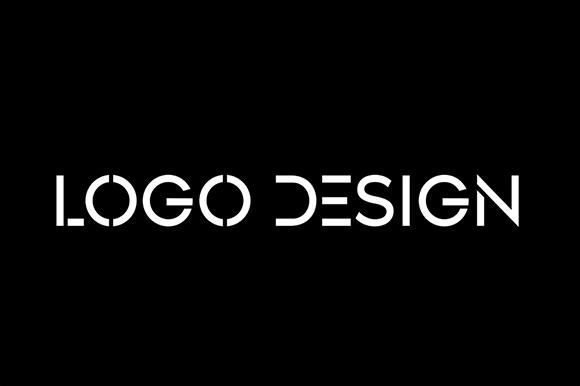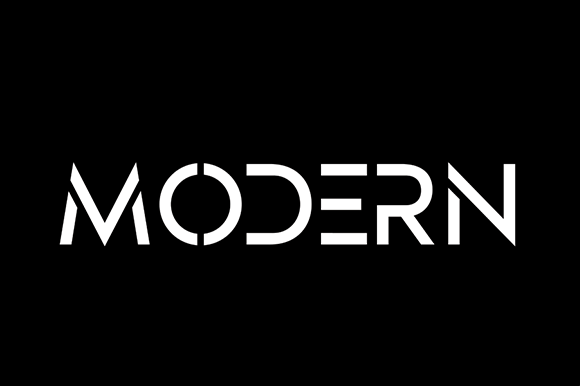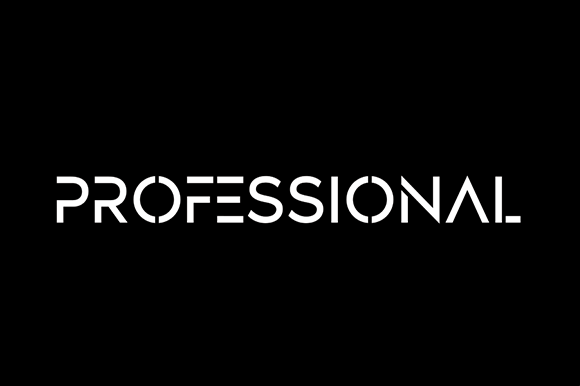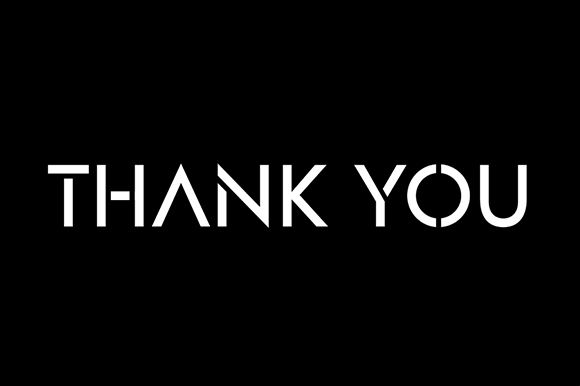
Meet Your New Design BFF: Designer Font
You know that moment when a font just clicks? When you’re working on a project and suddenly, the perfect font appears, and everything falls into place? That’s exactly what happens when you discover the Designer Font. This simple yet stylish typeface is designed to elevate your designs, adding a touch of sophistication and elegance to any layout.
Whether you’re working on a formal brochure or a casual social media post, the Designer Font is the perfect companion for designers. Its clean and beautiful arrangement of letters makes it versatile and easy to use, ensuring your designs stand out from the crowd. With its ability to adapt to any style, this font is a valuable addition to any designer’s toolkit.
Designer Font Key Features
• Unique characteristic: Custom-designed letterforms with subtle flair and elegance, making it ideal for high-end branding and publishing projects.
• Support for advanced typographic features, such as ligatures, swashes, and ornaments, allowing designers to add a touch of sophistication to their work.
Designer Font Review
Overall, I think Designer Font has some great qualities, but it also has some limitations that might make it not suitable for every project. Let’s dive in and see what I mean.
• The font is very stylish and modern, perfect for trendy websites and applications.
• The font weights are well-designed and look great at different sizes.
• The font is highly legible, even at smaller sizes.
• The font doesn’t have a lot of character variations, which can make it feel a bit generic.
• The font is not as versatile as some other fonts, and might not work well in certain contexts.
• The font doesn’t have a lot of support for non-English languages, which can be a problem for international projects.
Overall, I think Designer Font is a solid choice for certain projects, but it might not be the best fit for every situation. With a bit more character variation and language support, it could be an even more effective font. As it stands, it’s a good option for trendy websites and applications, but might not be the best choice for more serious or professional projects.
Designer Font is ideal for creating professional-looking designs, such as:
• Logos and branding materials
• Business cards and letterheads
• Marketing materials, such as brochures and flyers
Remember to always use the font consistently throughout your design to create a cohesive look.
Alternatives to ‘Designer Font’ for Designers
Montserrat is a modern sans-serif font designed by Julieta Ulanovsky. It is perfect for use in digital platforms, logos, and headlines due to its clean and geometric appearance. Montserrat is more versatile and widely available than ‘Designer Font’, making it a suitable choice for various design projects.
Inter is a sans-serif font designed by Rasmus Andersson. It is known for its simplicity, legibility, and adaptability across different screen sizes and devices. Inter is a great alternative to ‘Designer Font’ as it is more robust, consistent, and widely supported by various platforms.
Lato is a sans-serif font designed by Łukasz Dziedzic. It is a great choice for body text and headlines due to its clean and elegant appearance. Lato is more versatile and widely available than ‘Designer Font’, making it a suitable choice for various design projects.
Open Sans is a sans-serif font designed by Steve Matteson. It is a popular choice for digital platforms, logos, and body text due to its clean and modern appearance. Open Sans is a great alternative to ‘Designer Font’ as it is more robust, consistent, and widely supported by various platforms.